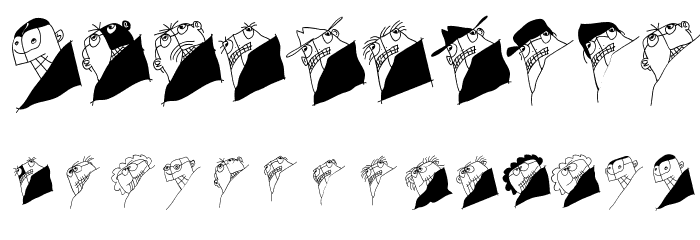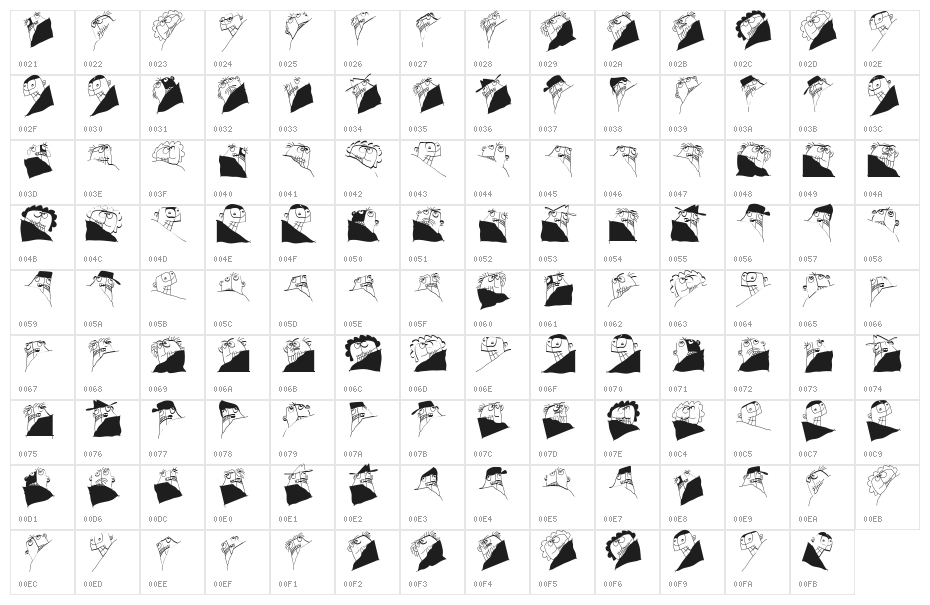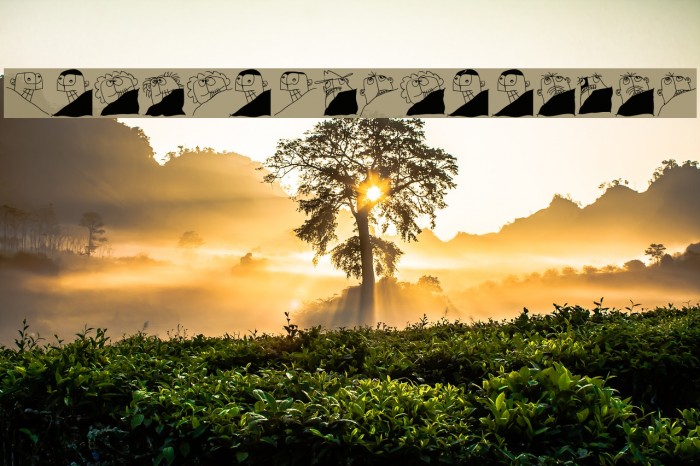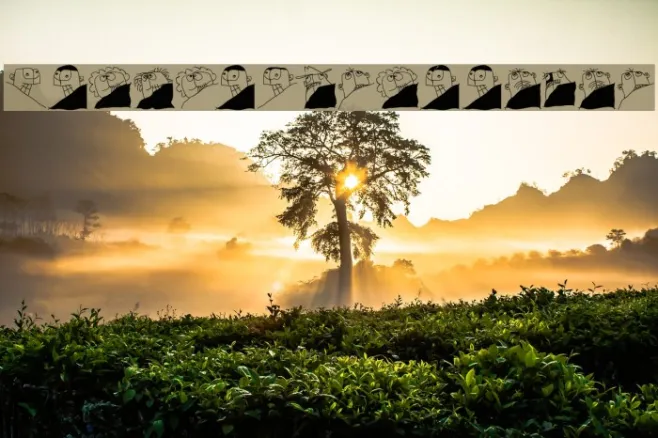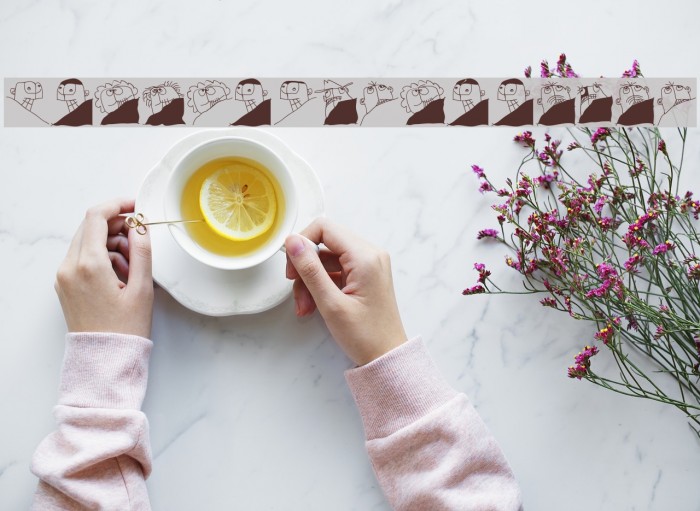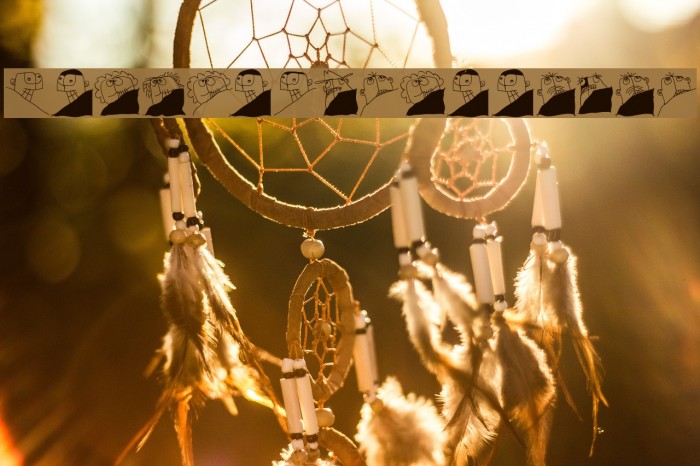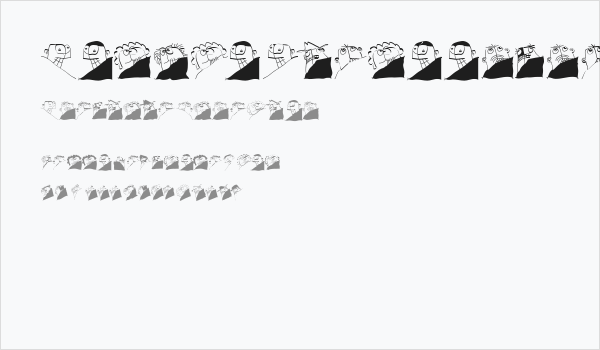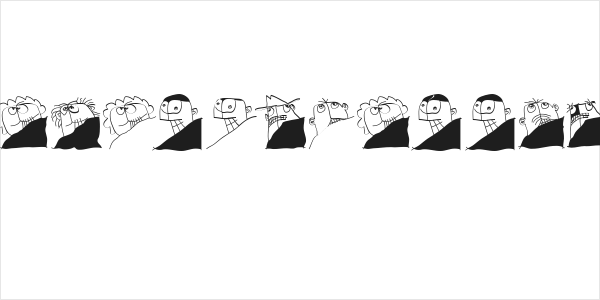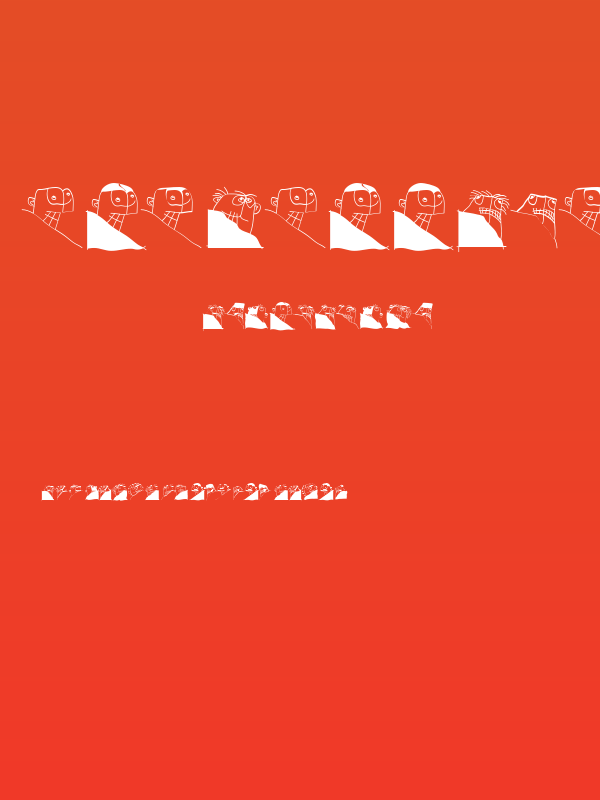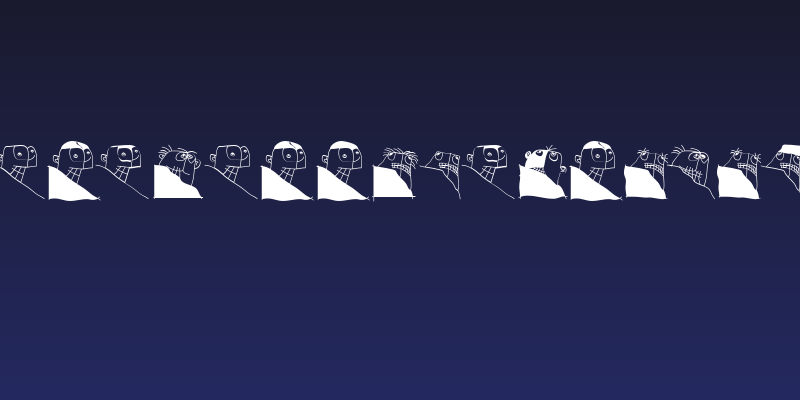
Comicontemporary Font
Comicontemporary Description
This is not a traditional font but rather a series of cartoonish illustrations depicting various characters. Each character is uniquely styled with exaggerated facial features and expressions, capturing a playful and whimsical essence. The characters are drawn with bold lines and a mix of black and white, creating a high-contrast look. The style is reminiscent of comic strips, with a humorous and lighthearted tone. These illustrations could be used in creative projects that require a fun and engaging visual element.
| Overall Style | Comic, Whimsical |
| Use Case | Illustrations, Comics, Branding |
| Proposed Projects | Ideal for comic strips, children's books, playful branding, or any project needing a humorous touch. |